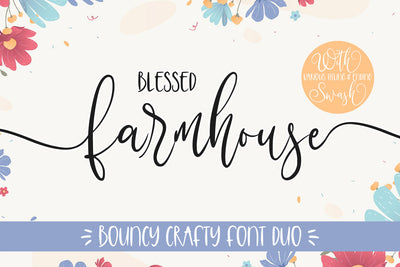
Blessed Farmhouse -Duo-
introducing
BLESSED FARMHOUSE
-bouncy craft font duo-
This font is designed for crafters
It is great for cutting, silhouette, branding, packaging, quotes, t-shirt design, card, banners, and anything of craft project.